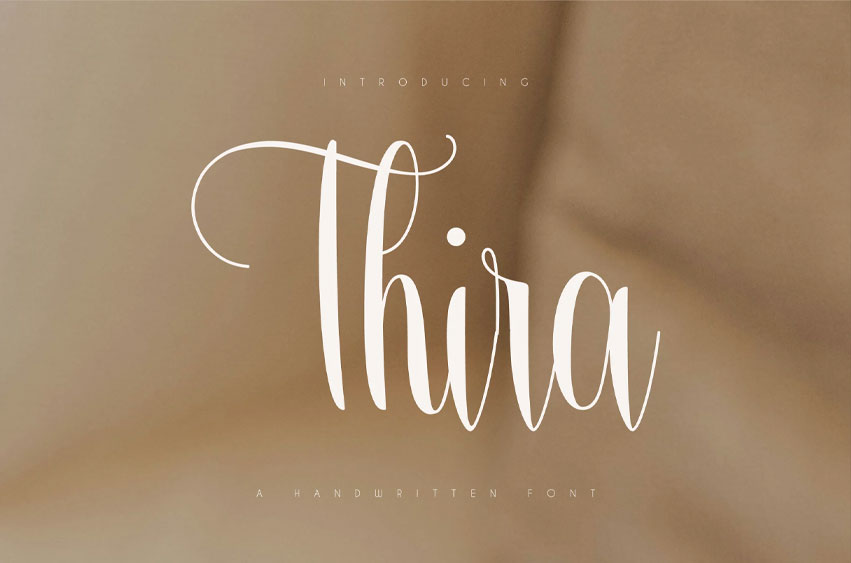
Thira Font
Thira Font is a sleek and contemporary script handwritten font that effortlessly blends elegance with modern flair.
Its delicate, flowing curves and natural handwritten strokes evoke a sense of warmth and personality, while maintaining a clean and sophisticated appearance.